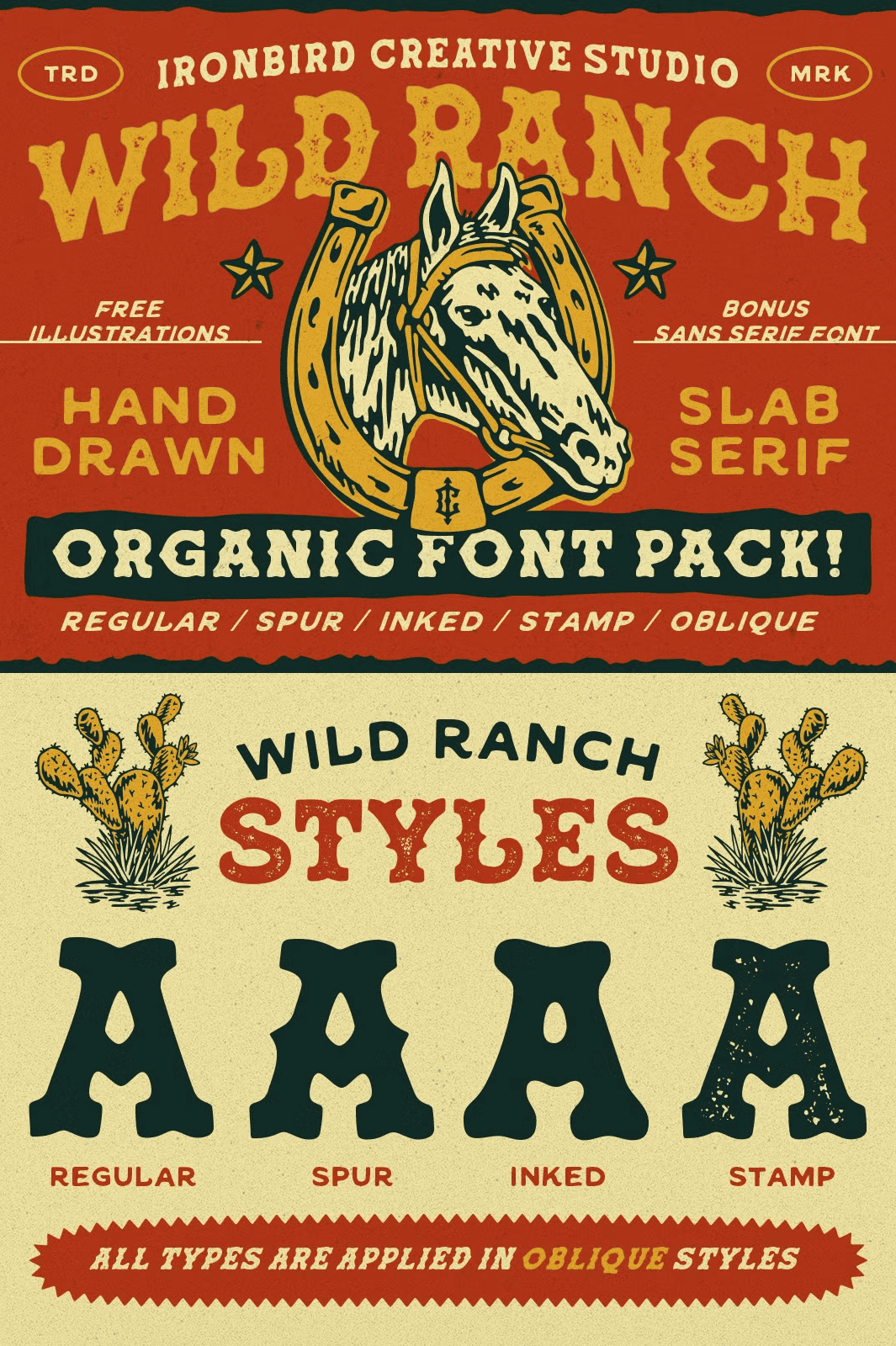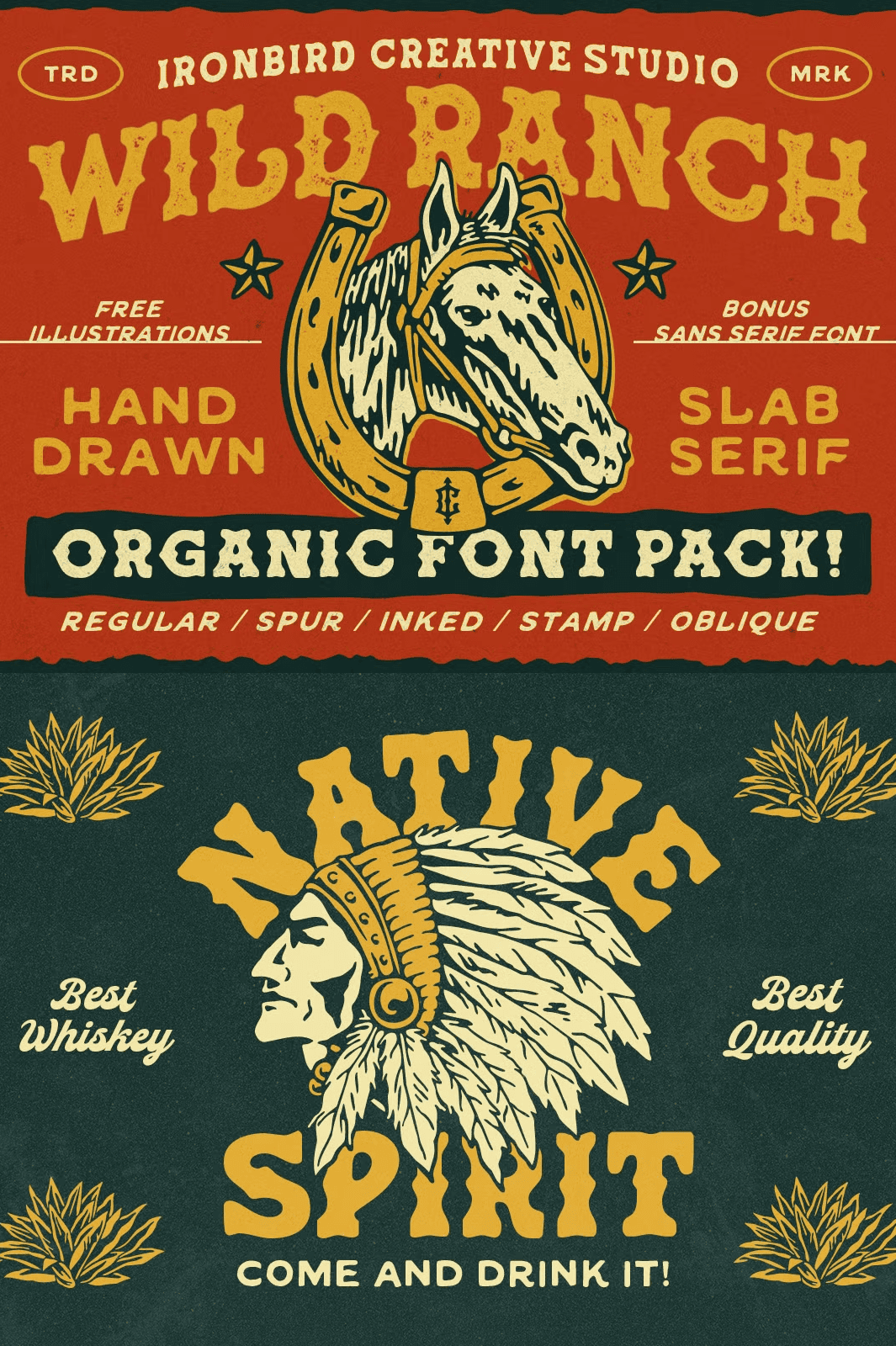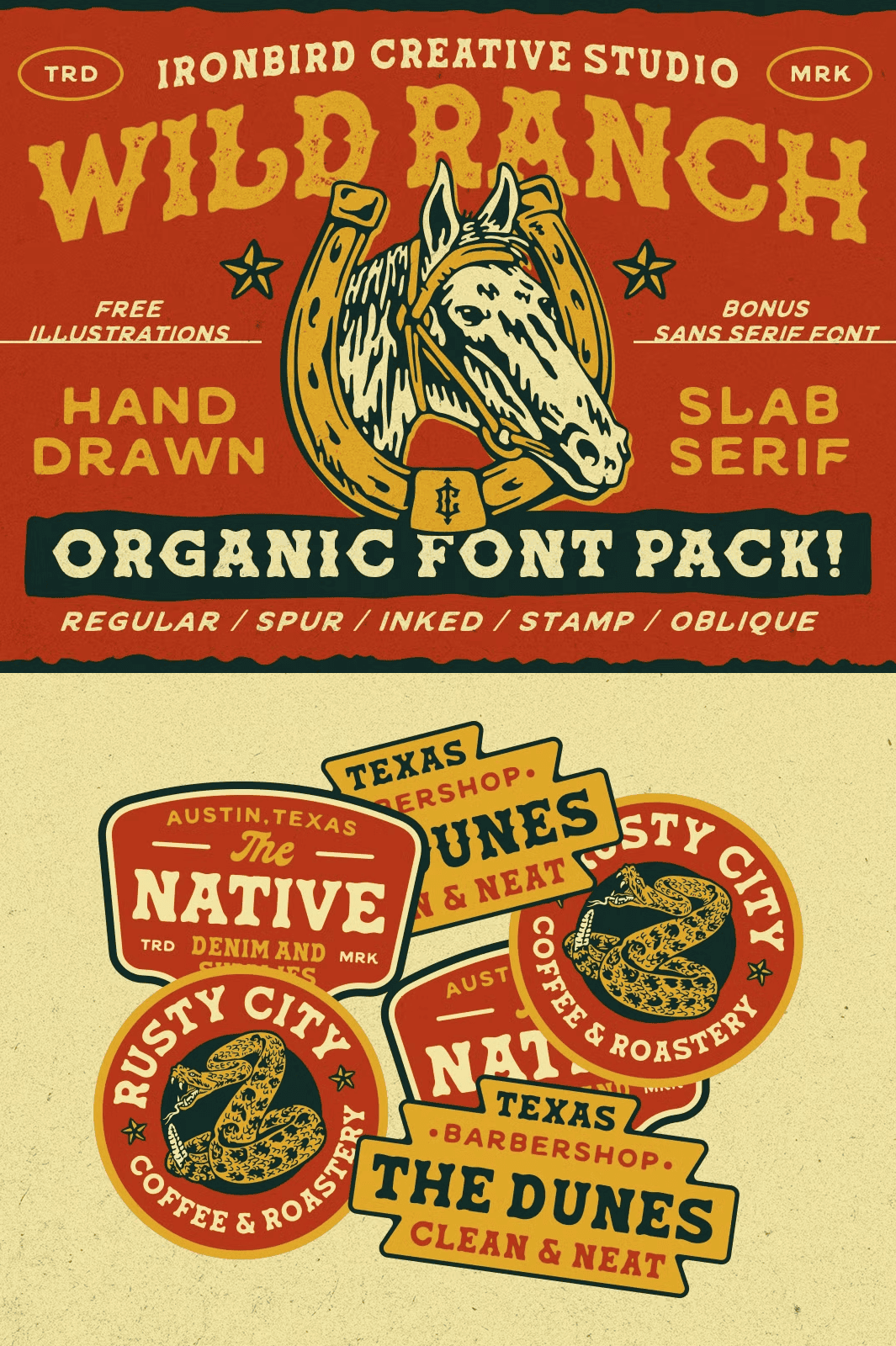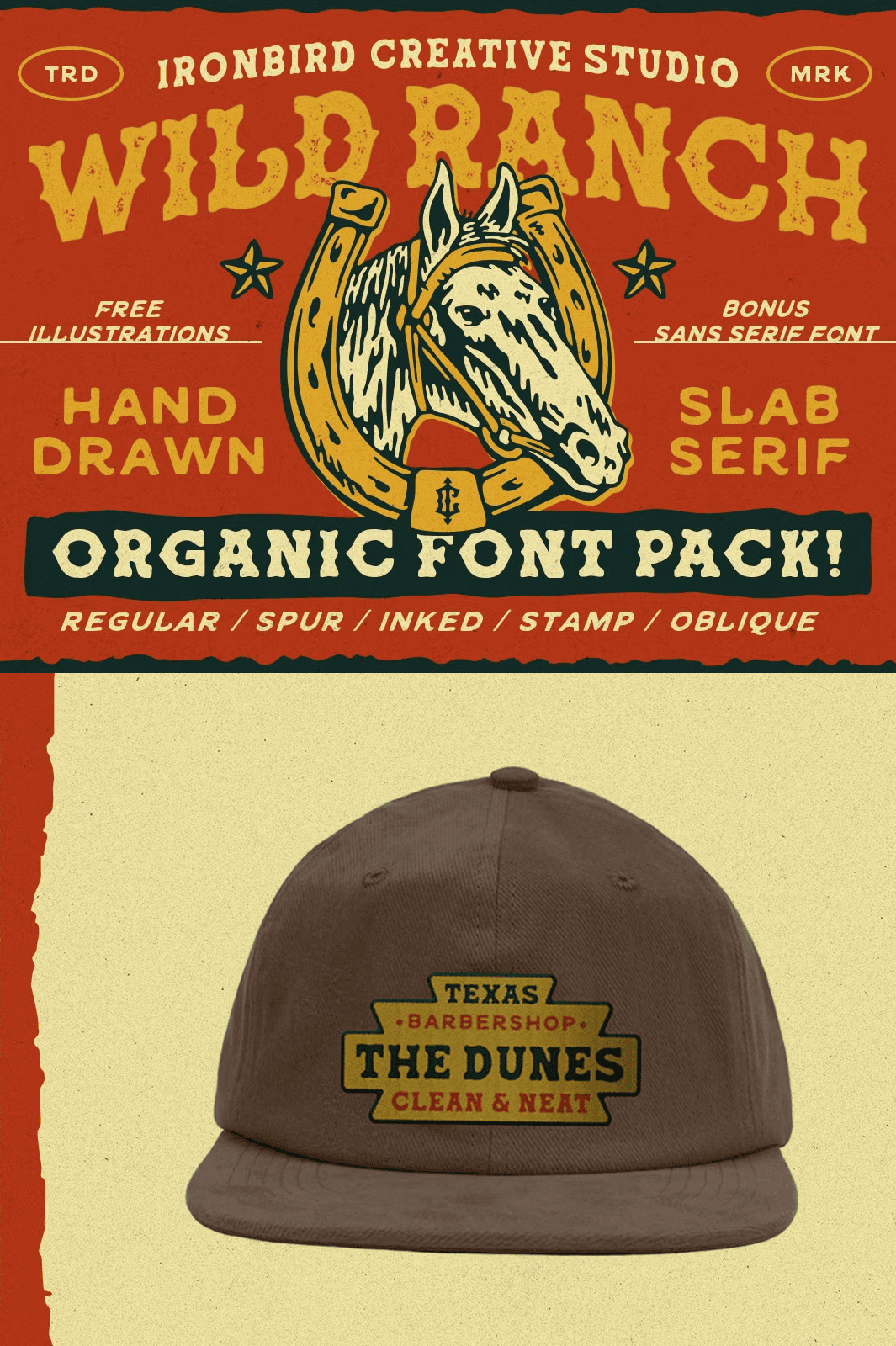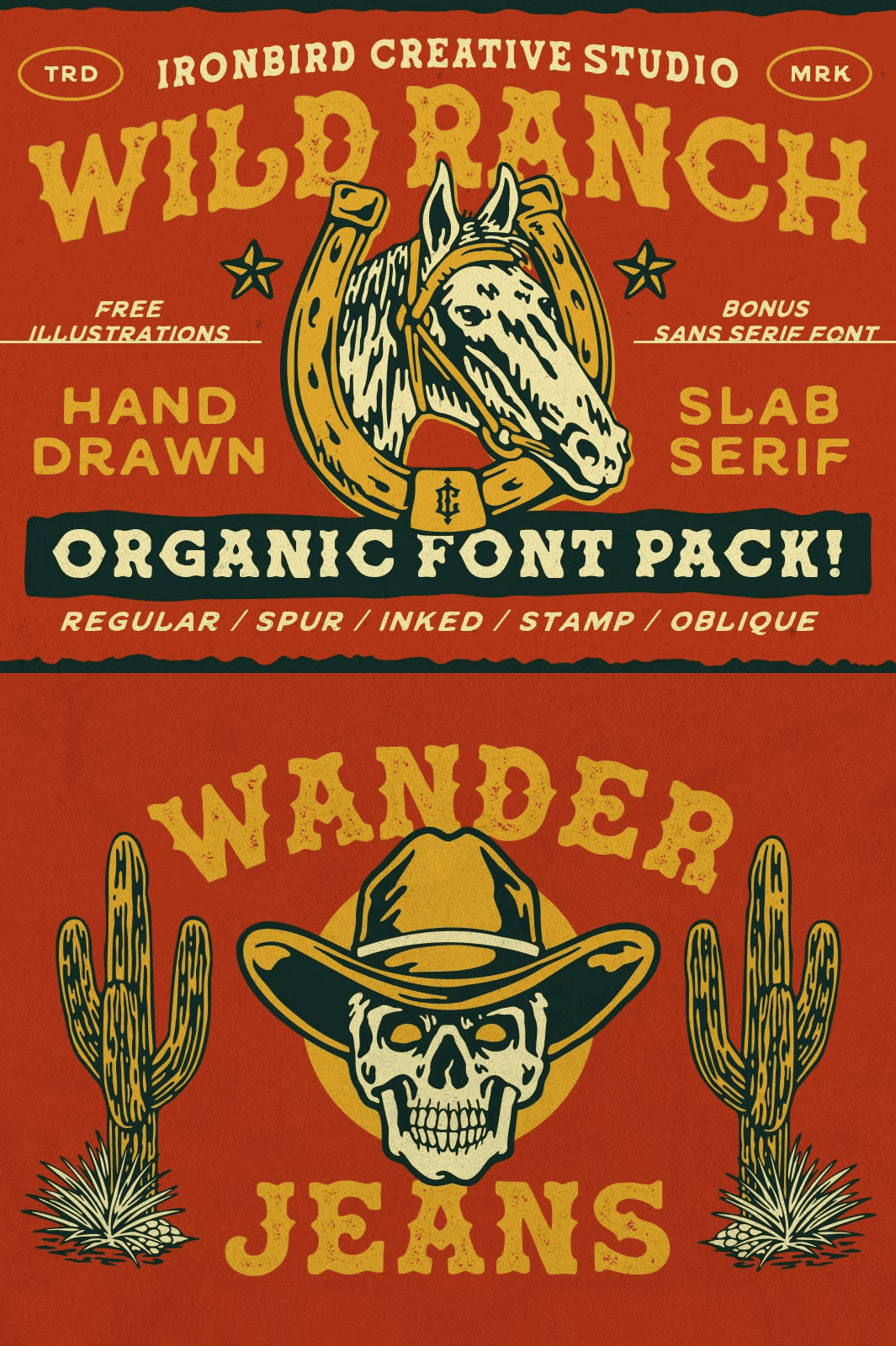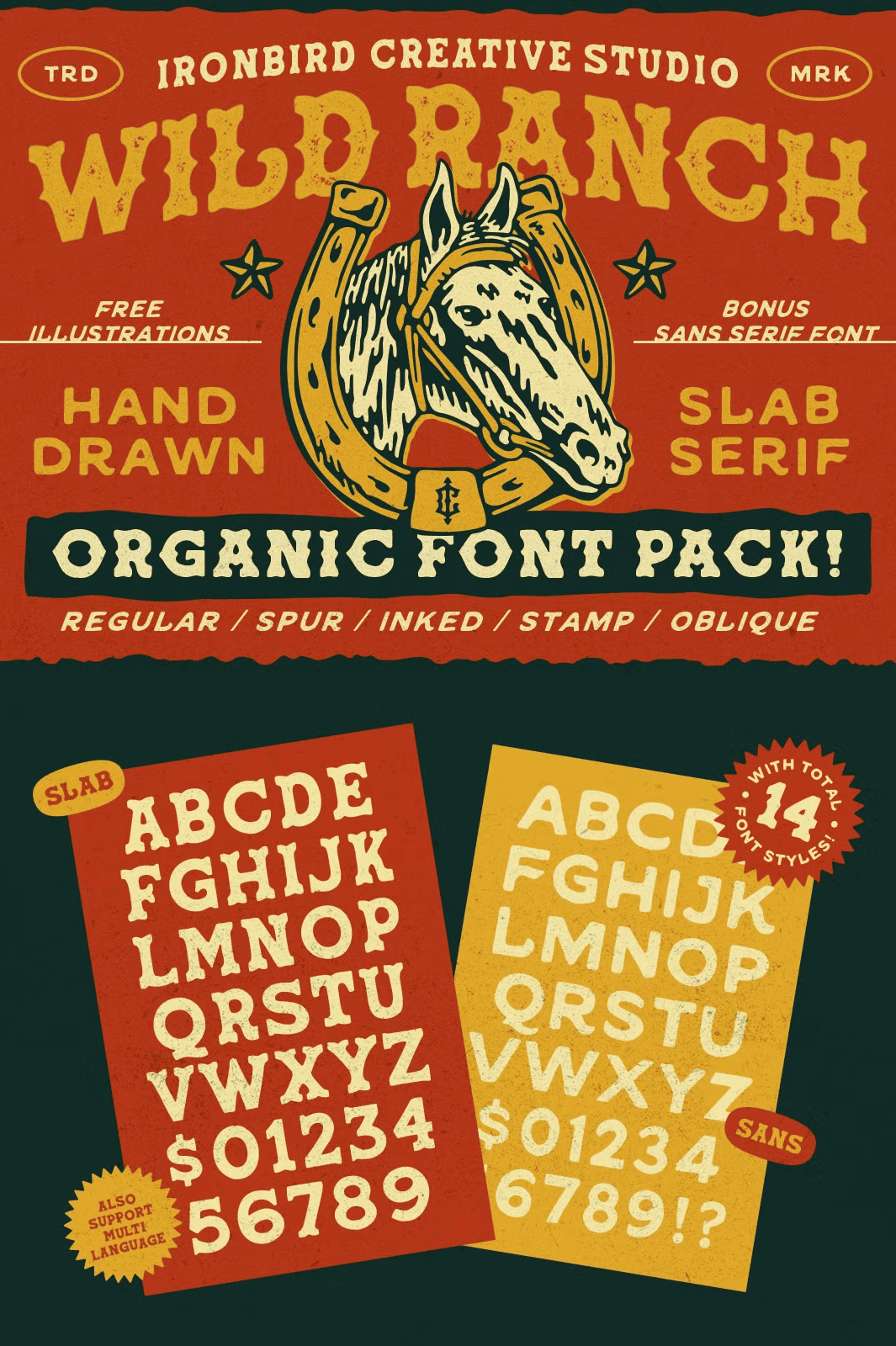
Wild Ranch – Font Pack & Extras!
Step into a world where every letter feels carved from weathered wood and stamped onto a weather‑beaten sign. Wild Ranch delivers that authentic, hand‑drawn slab serif aesthetic with a modern, production‑ready twist. This comprehensive type family gives designers a powerful toolbox for projects that crave an organic, rugged feel without sacrificing technical precision.
Explore the Complete Collection of 14 Styles and Creative Extras
The Wild Ranch bundle contains 14 distinct fonts spread across three core families:
• Wild Ranch Slab Serif – an authoritative, bold serif with strong horizontals and generous counters.
• Wild Ranch Sans Serif – a clean, complementary sans that balances the slab’s weight while preserving the hand‑drawn texture.
• Wild Ranch Dingbats – a curated set of ornamental glyphs, icons, and decorative elements that echo the western frontier.
Why Choose Wild Ranch for Authentic Organic and Classic Western Projects
Designers frequently face a dilemma: they need a typeface that feels genuinely handcrafted yet remains flexible enough for digital and print workflows. Wild Ranch resolves this tension through several key strengths:
• Vintage Aesthetic: Every glyph bears subtle irregularities—slightly uneven strokes, distressed serifs, and organic serifs—that echo old‑school wood‑cut signage.
• Versatile Pairings: The included sans and dingbat families make it effortless to create layered typographic hierarchies, from headline‑dominant posters to subtle body copy.
Each font supports OpenType features such as ligatures, alternate characters, and contextual forms, giving you granular control over the final appearance. The illustration pack includes ornamental flourishes, frontier‑style badges, and decorative borders that can instantly transform a simple layout into a storytelling piece.
Creative Applications and Inspiration
Whether you’re designing a Western‑themed restaurant menu, a rodeo poster, a vintage‑style logo, or a rustic product label, Wild Ranch gives you the visual language to convey authenticity. Pair the bold slab serif headlines with the clean sans for supporting copy, and sprinkle the dingbat icons throughout for embellishment. The hand‑drawn illustrations can serve as background textures, decorative frames, or focal points in editorial spreads.